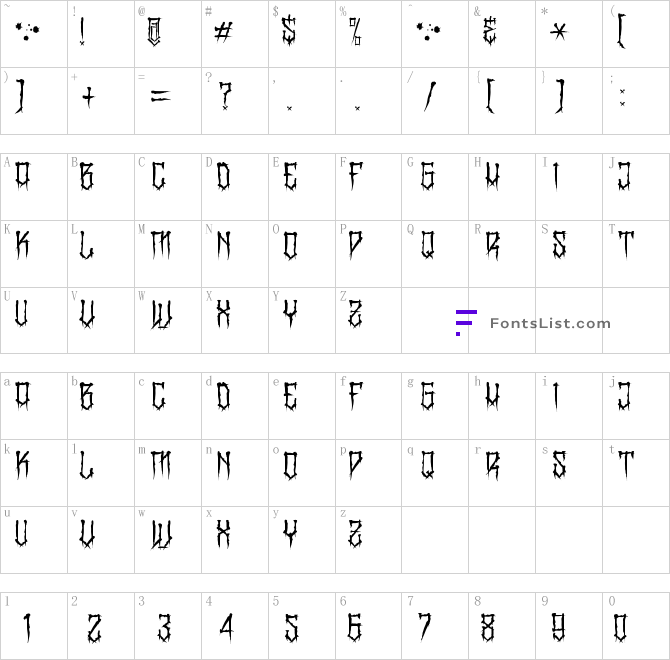
- Font Name:BangLYCH - Revenge Horror I
- Full Name:BangLYCH - Revenge Horror I
BangLYCH-Revenge-Horror-I.ttf is a very beautiful artistic font, BangLYCH-Revenge-Horror-I.ttf is widely used in the design and printing of various books and pictures,BangLYCH-Revenge-Horror-I.ttf has a strong visual impact,BangLYCH-Revenge-Horror-I.ttf is a commonly used font in newspapers, magazines and books, and is used in posters, e-commerce Poster design, store design, logo design, font design and other fields.BangLYCH-Revenge-Horror-I.